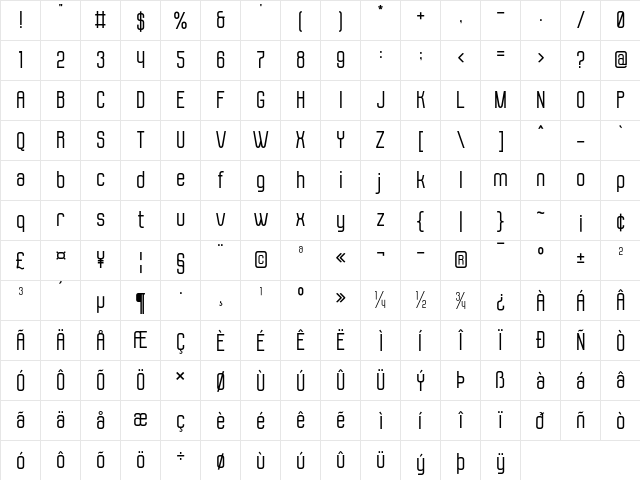
Molor Regular
| Foundry | Sons Of Baidlowi Typefoundry |
| Designer | Mohammad Azmil Bahar |
Design Context for Molor Typeface
Molor is a composed and adaptable typeface that performs quietly and consistently across a wide range of design contexts.